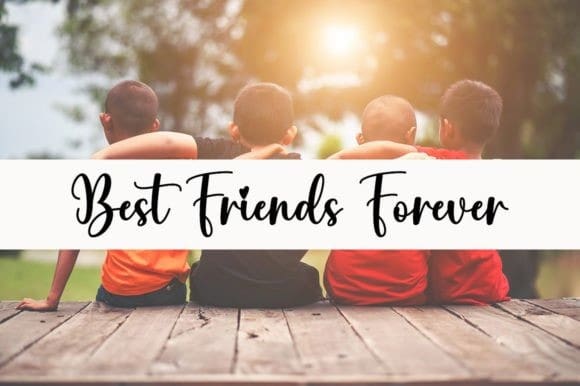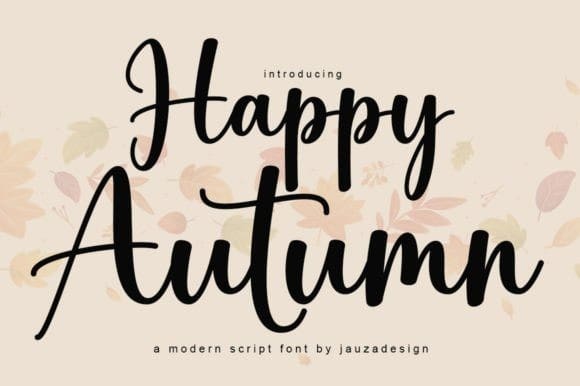
Happy Autumn Font
Happy Autumn Font is a lovely and delicate script font. It is PUA encoded which means you can access all of the amazing glyphs and ligatures with ease!